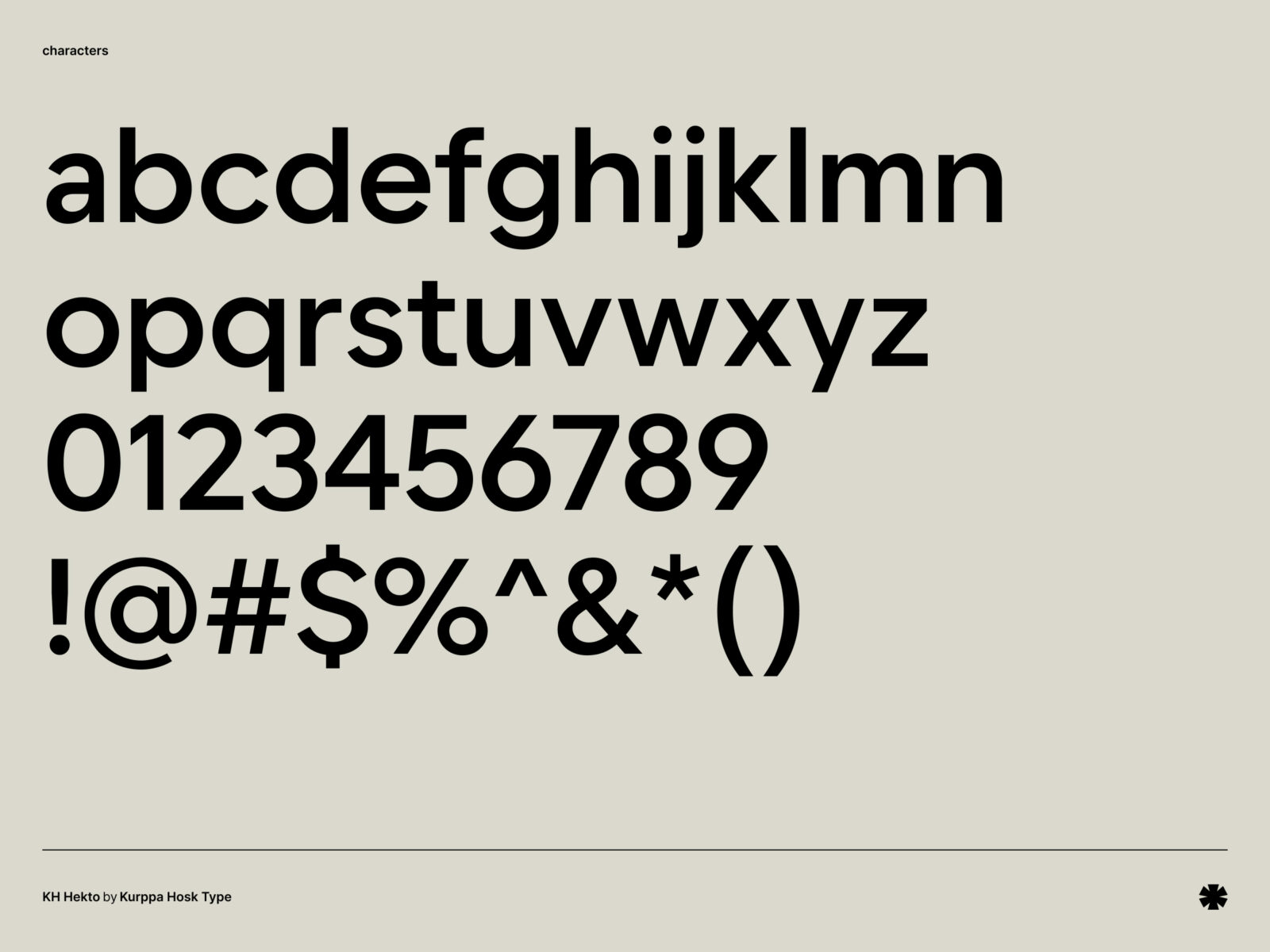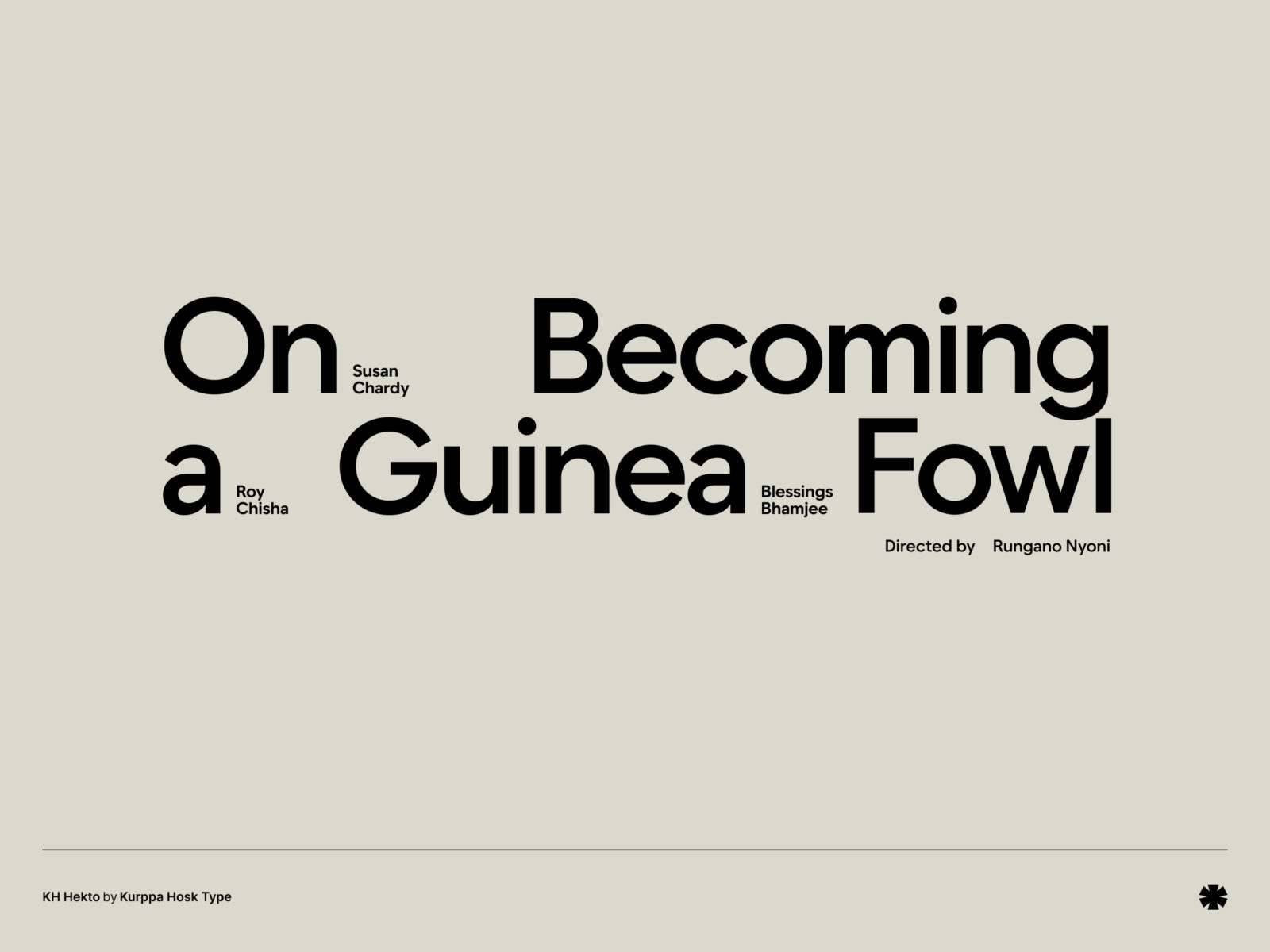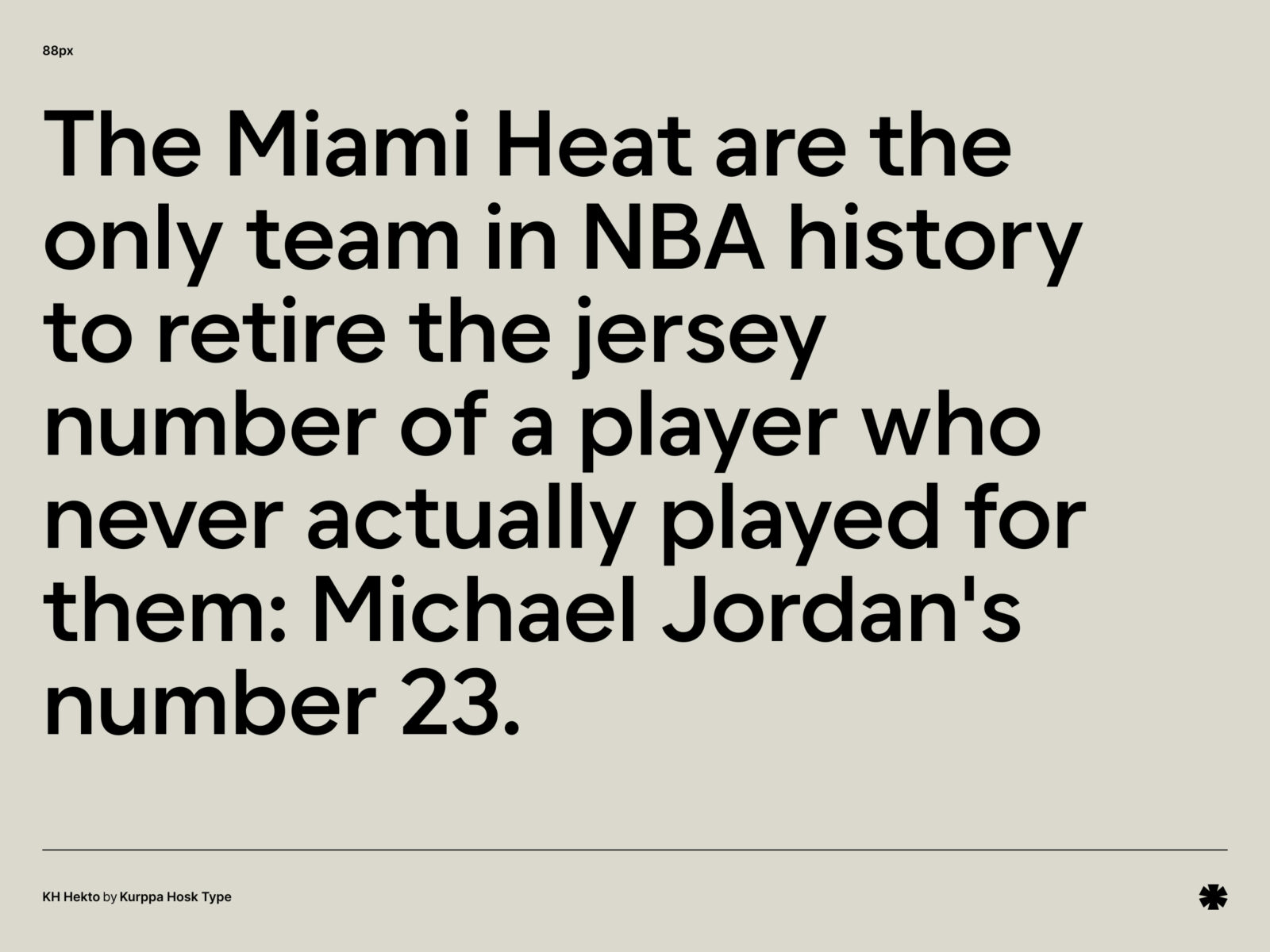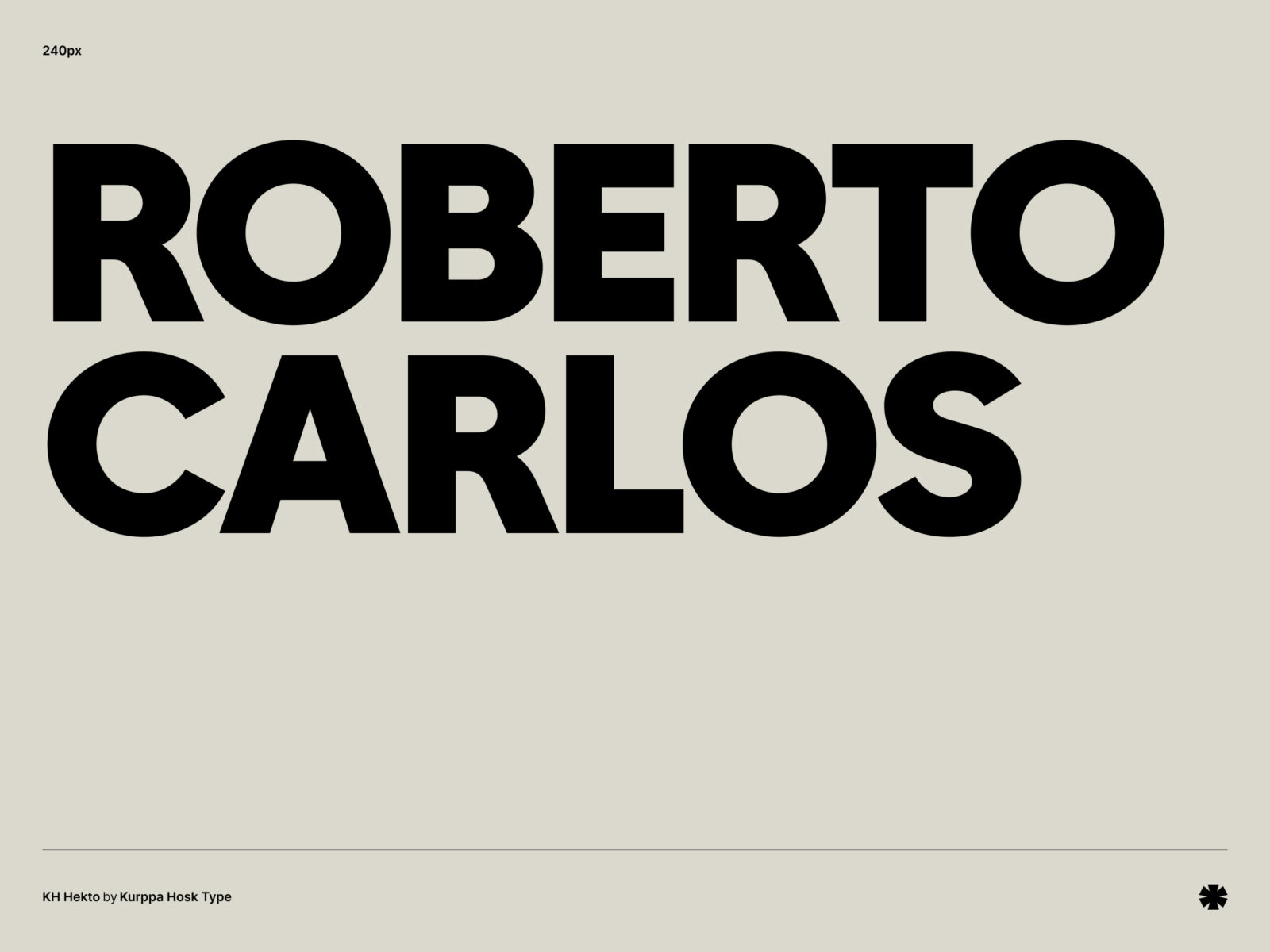
KH Hekto is one of those typefaces with a very soft, geometric feel that is very versatile. It is offered in 3 slightly different versions: Vert, Lut and Plan.
Kurppa Hosk Type
Kurppa Hosk, Jakob Ekelund, Wille Larsson, Noel Brattström